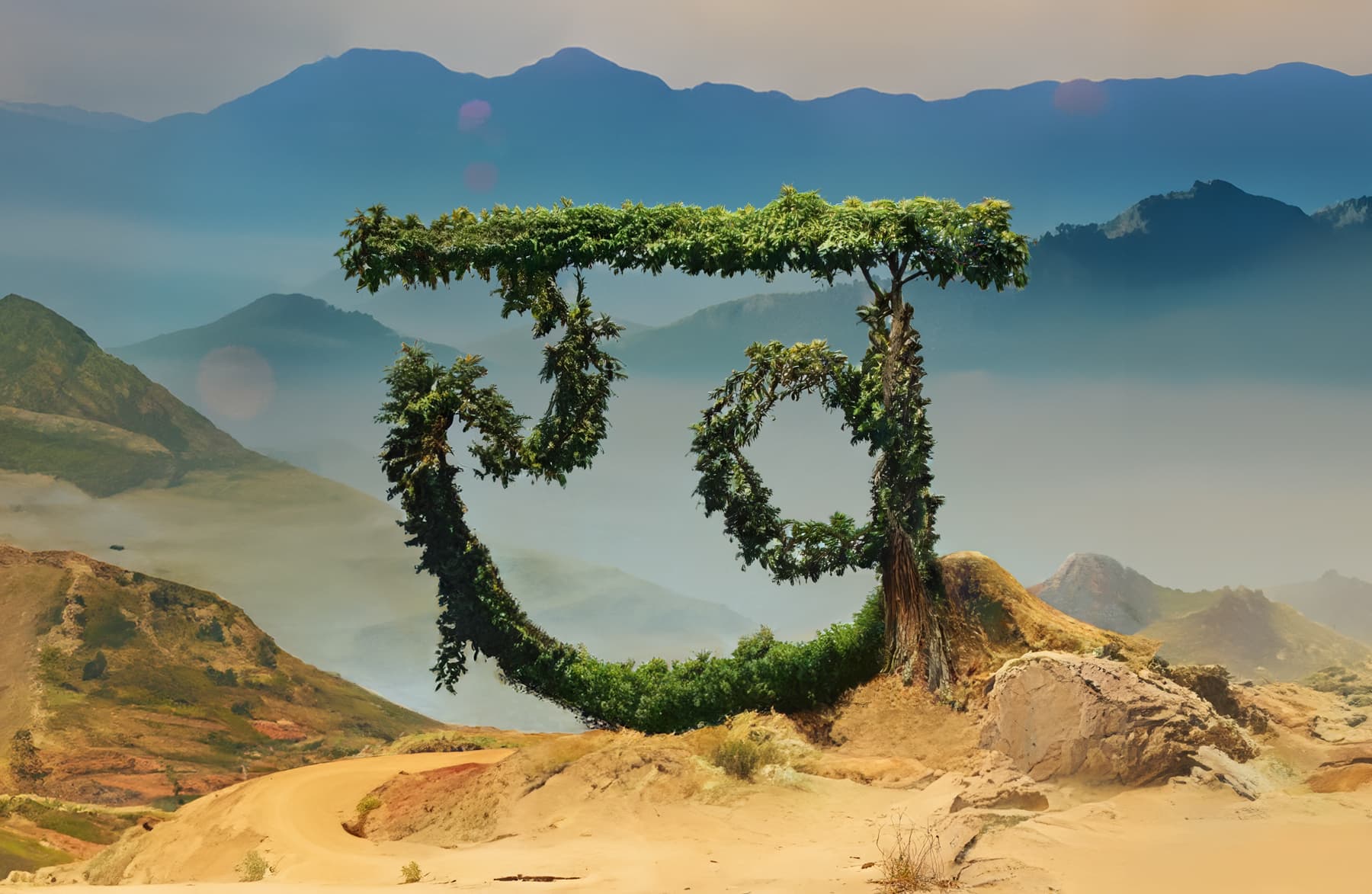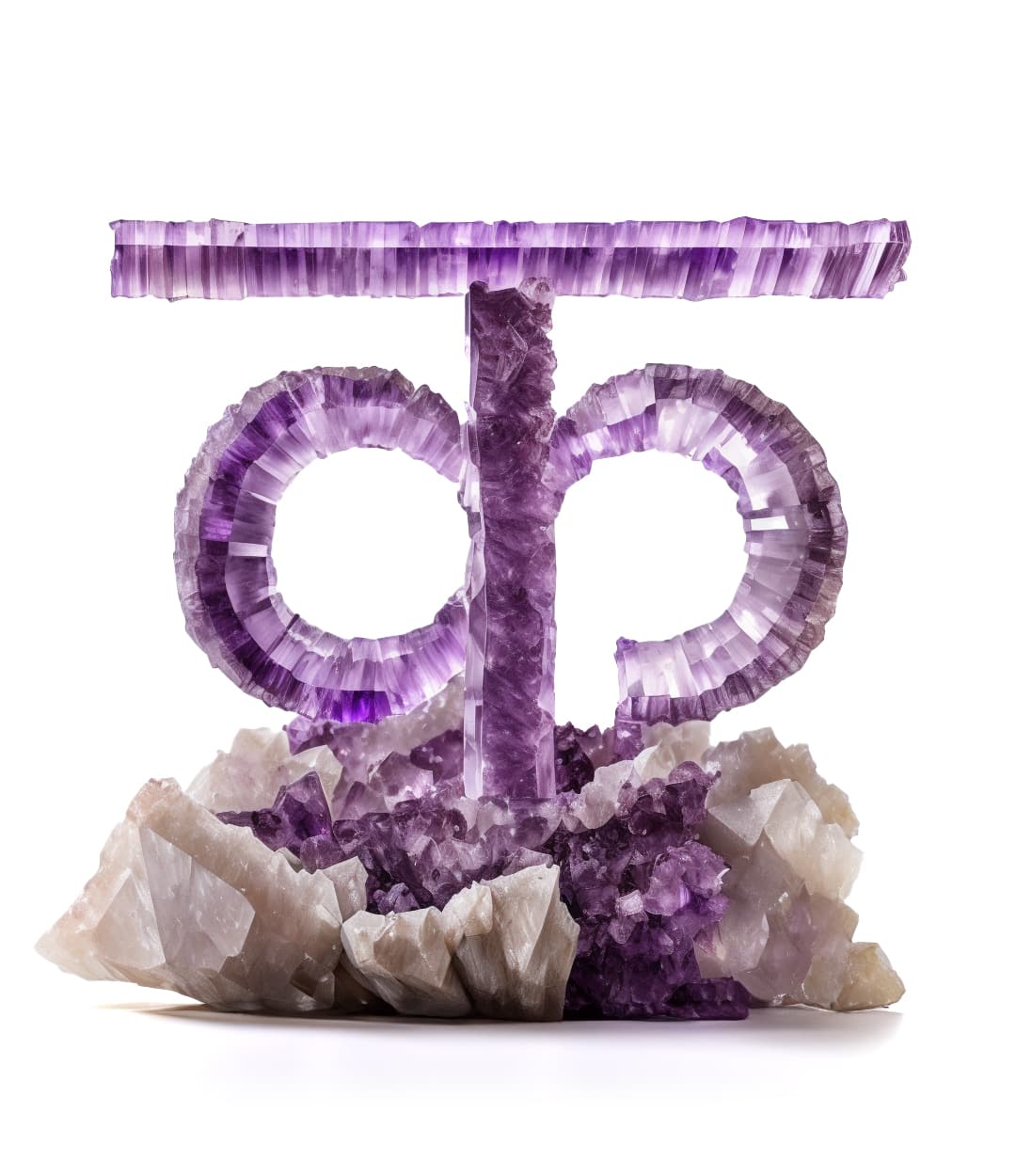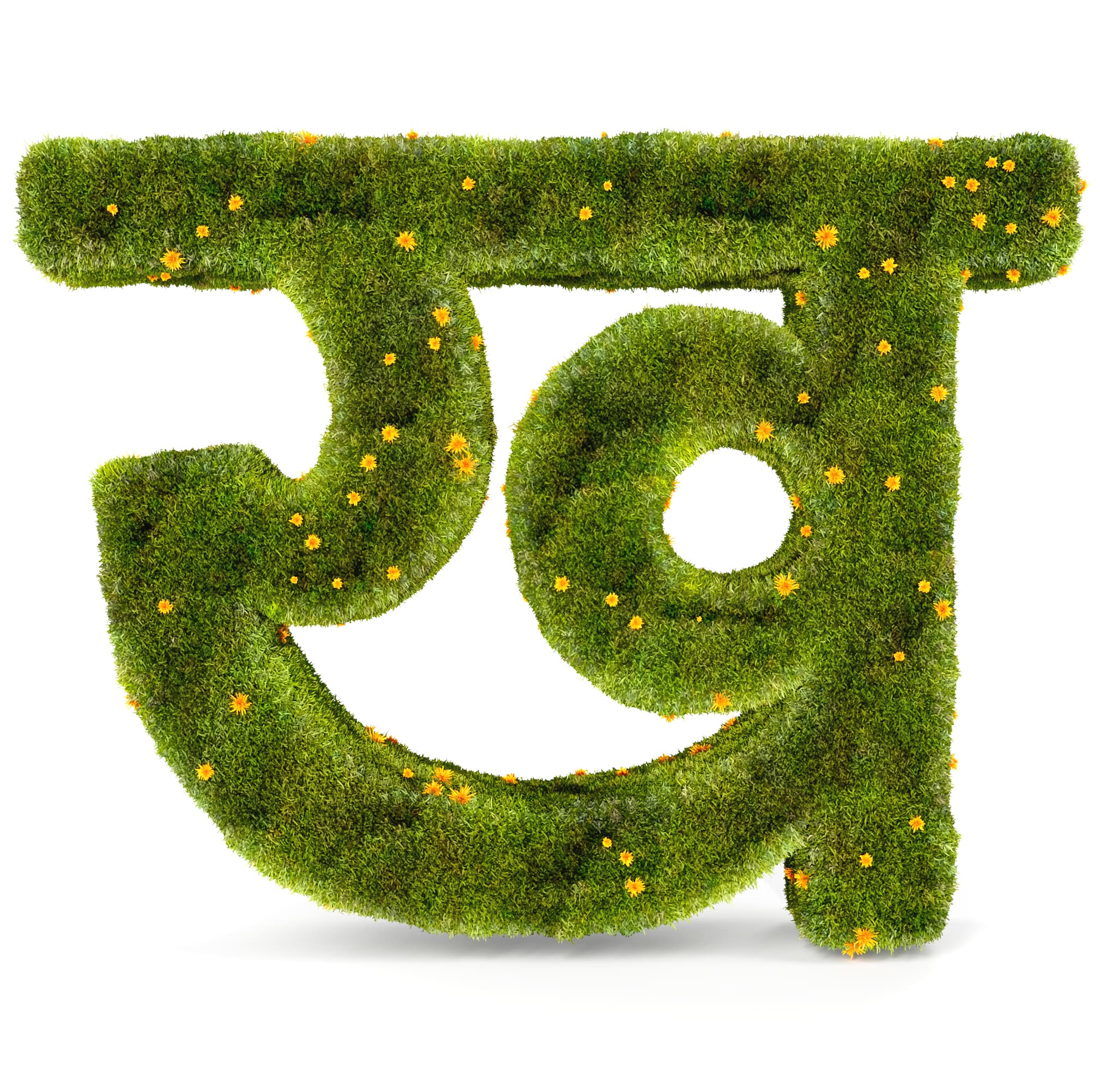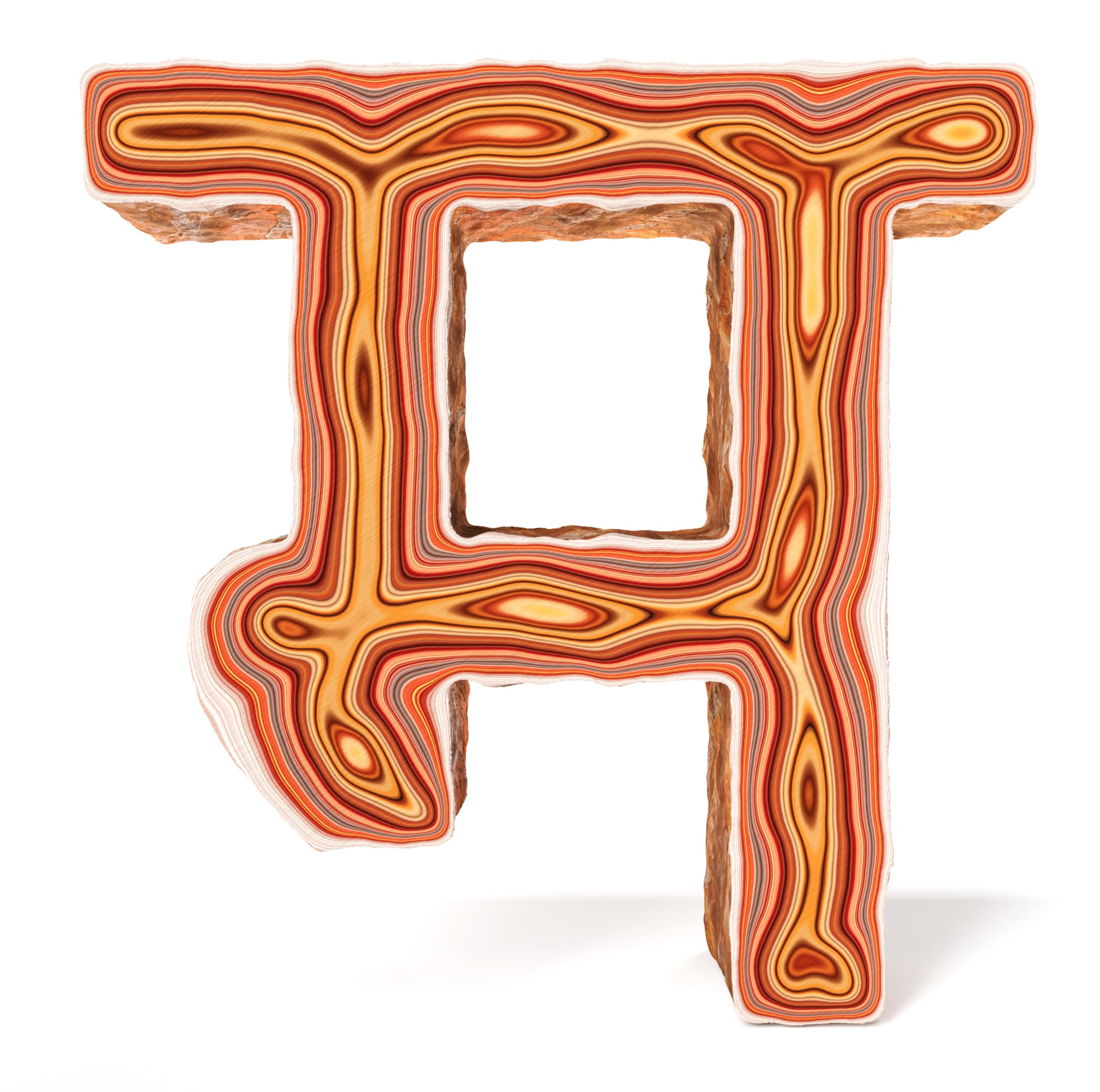
Sharp Earth देवनागरी
Sharp Earth is a new multi-script sans serif typeface spearheaded by Lucas Sharp and drawn in collaboration with a team of local experts from around the globe. The Sharp Earth family covers nearly every latinized language script on Earth in addition to Greek, Cyrillic, Arabic, Thai, Devanagari, and Japanese. As a contemporary expression of the international style, Sharp Earth is unified by a forward-looking aesthetic paradigm that has been drawn by and for a truly global design culture. Sharp Earth doesn’t neatly exist in any single sub-genre of the Sans Serif pantheon. Rather, it brings together core aspects of disparate sub-genres of sans serif type that share an emphasis on warmth, pragmatism, and utility.
Anagha Narayanan's endeavor with Sharp Earth Devanagari marks a significant milestone for Sharp Type's exploration into Indic scripts. The meticulous design process involved studying Devanagari signage, calligraphy manuals, and book covers, alongside a thorough examination of Sharp Earth Latin's stylistic nuances. The result is a craftily executed script that mirrors Sharp Earth’s overall warmth, approachability, and groundedness while translating certain key stylistic quirks—such as the Latin’s ink traps, top-heavy Grotesk proportions, and geometric terminals—into a new context. Crafted over a span of 2-½ years, Anagha began work at the start of 2021 while she was enrolled in a full-time type design course, making Sharp Earth Devanagari a testament to her growing erudition as a type designer.
Type Director: Lucas Sharp | Designers: Anagha Narayanan & Arya Purohit | Engineer: EK type